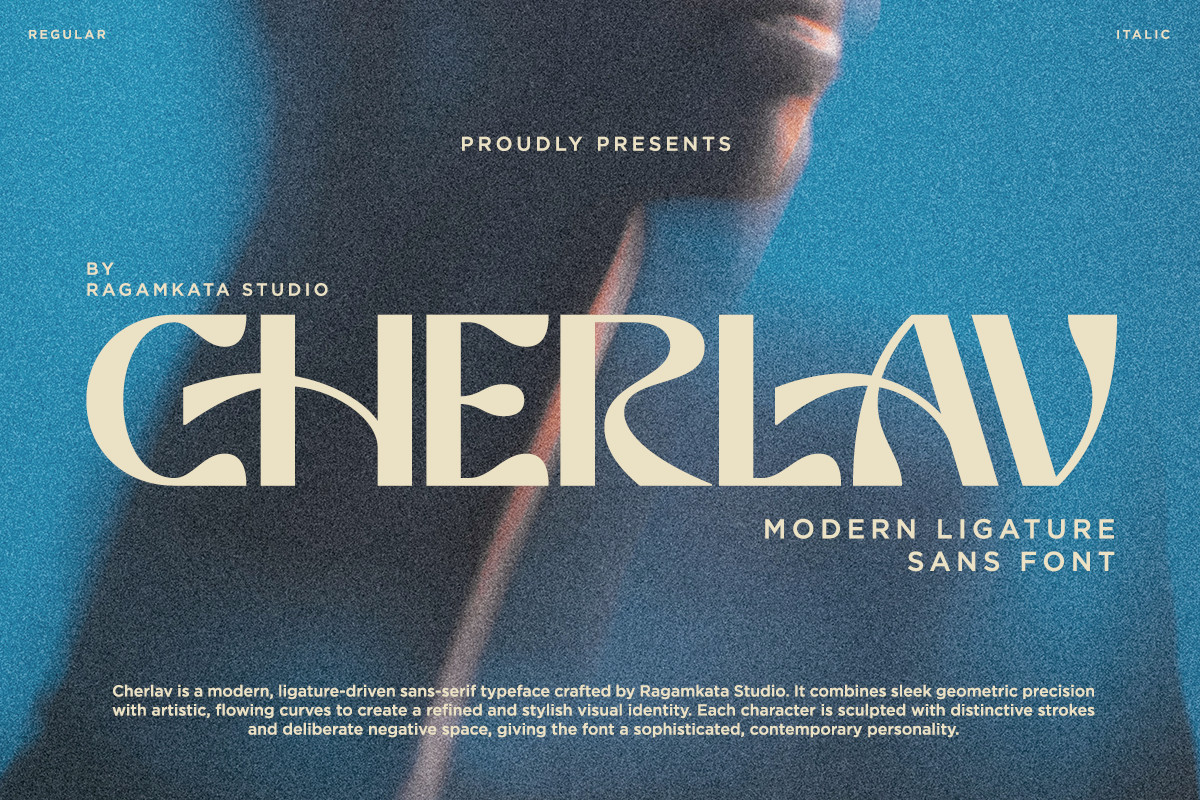
Cherlav - Modern Ligature Font
Cherlav is a modern, ligature-driven sans-serif typeface crafted by Ragamkata Studio. It combines sleek geometric precision with artistic, flowing curves to create a refined and stylish visual identity. Each character is sculpted with distinctive strokes and deliberate negative space, giving the font a sophisticated, contemporary personality.
A key feature of Cherlav is its unique ligatures, which merge certain letter pairs into seamless, expressive forms. This makes the typeface feel dynamic and elegant, ideal for design projects that call for a touch of luxury and modern artistry.
- Stylish Ligature Set ( Uppercase & Lowercase )